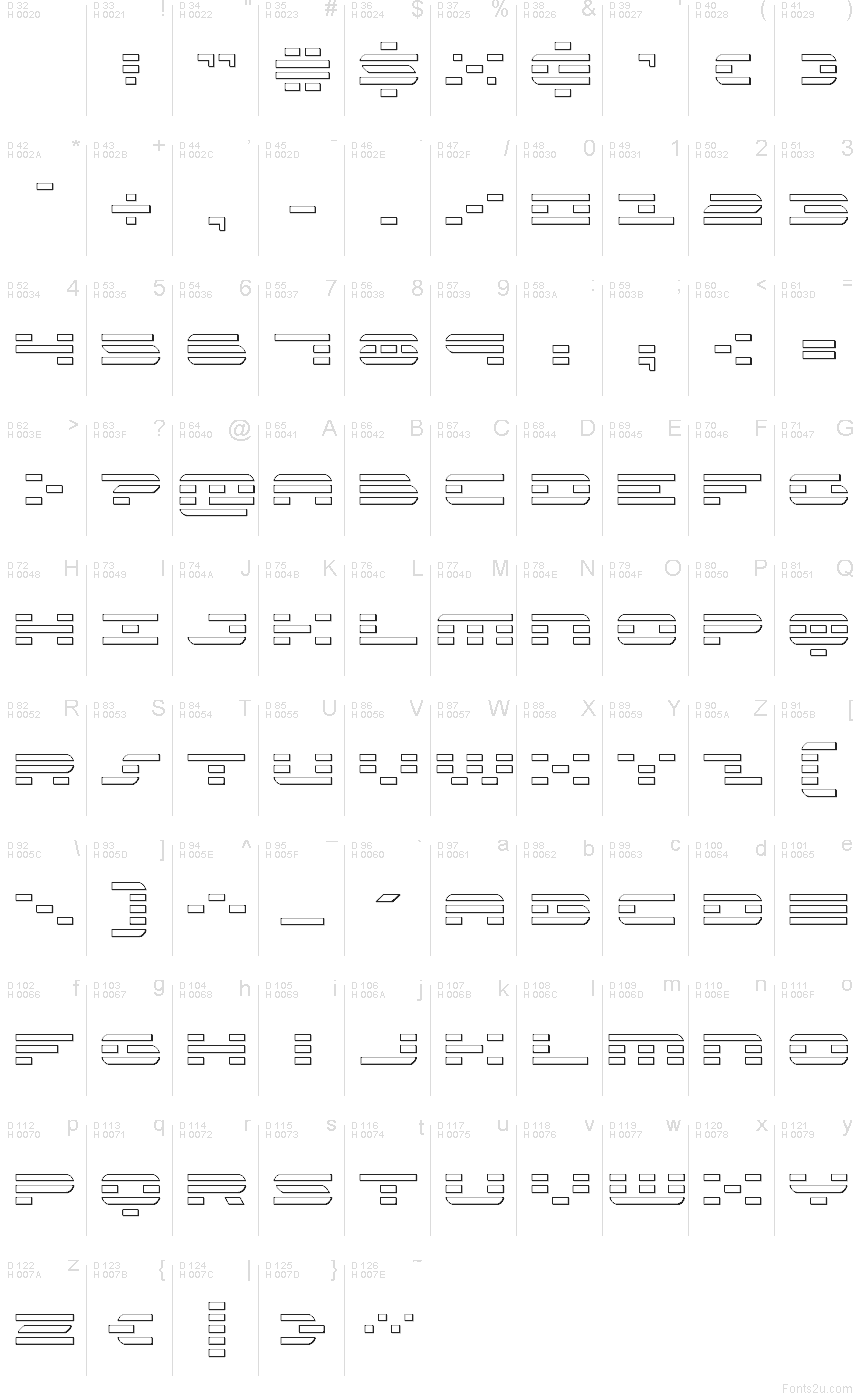
Nova Terra Outline
Nova Terra Outline font by Iconian Fonts is a free futuristic 3D display typeface that looks like it was wired straight out of a sci‑fi control panel. Hollow letterforms framed by crisp outer lines and stacked horizontal segments create a sleek, technical texture that feels both mechanical and weightless. Its modular rhythm gives words a sense of motion, like light bars sliding across a spaceship hull.
Using Nova Terra Outline in bold, oversized titles instantly signals tech, gaming, or cyberpunk themes. This free font shines on game logos, esports branding, sci‑fi posters, synthwave album covers, tech conference graphics, and streaming overlays. For balance, pair it with a simple geometric sans from the Nova Terra family or another clean sans at smaller sizes to keep everything sharp and readable.